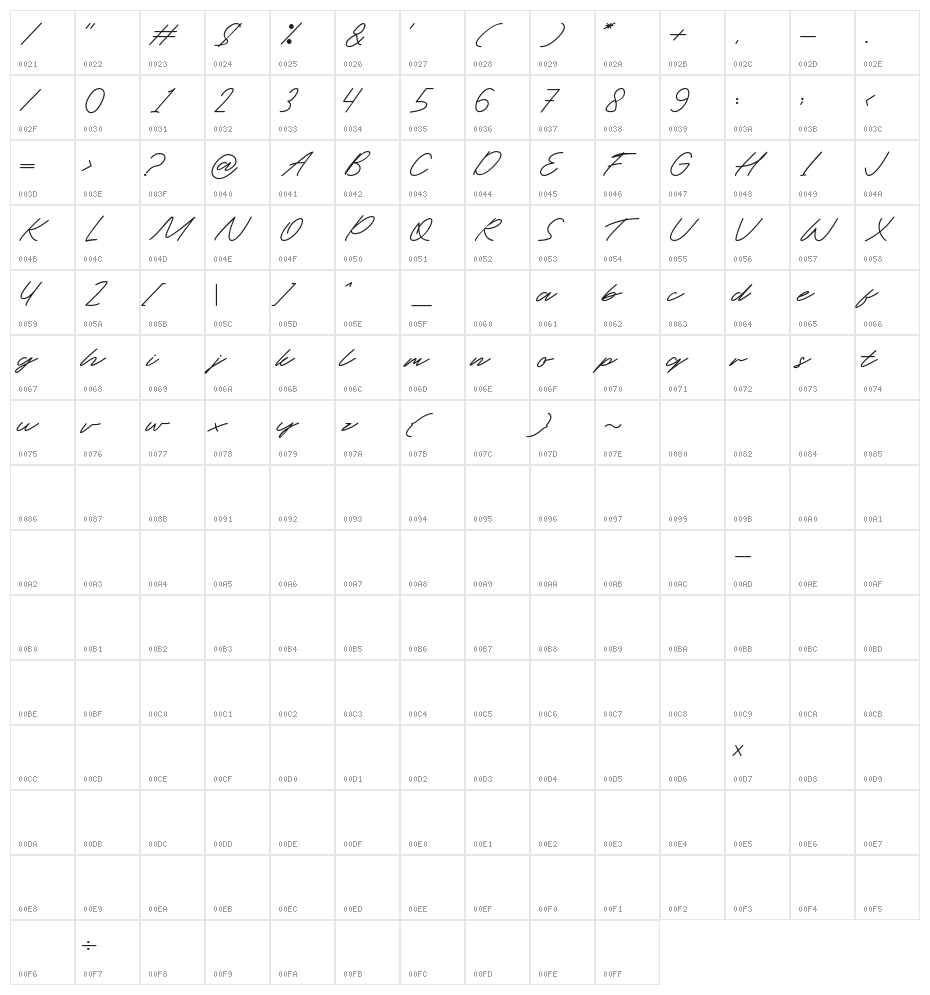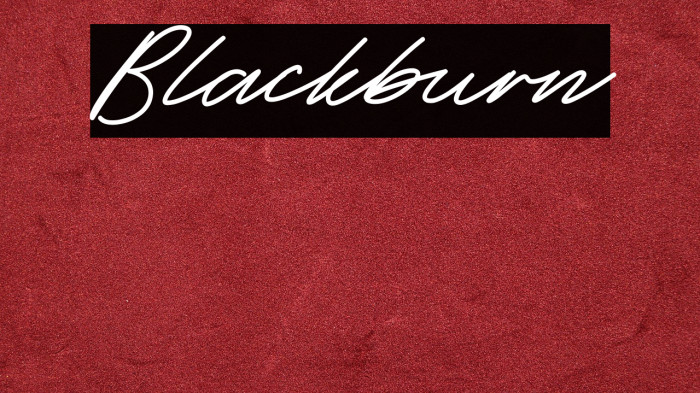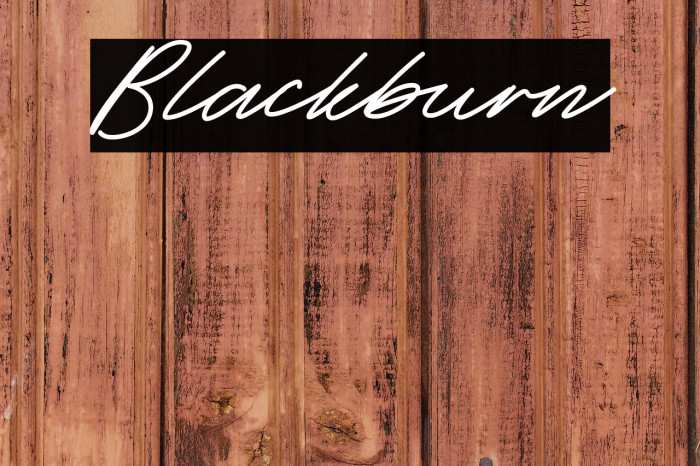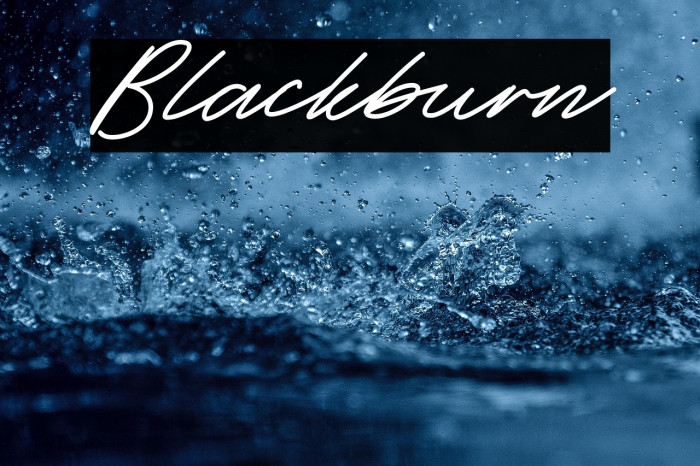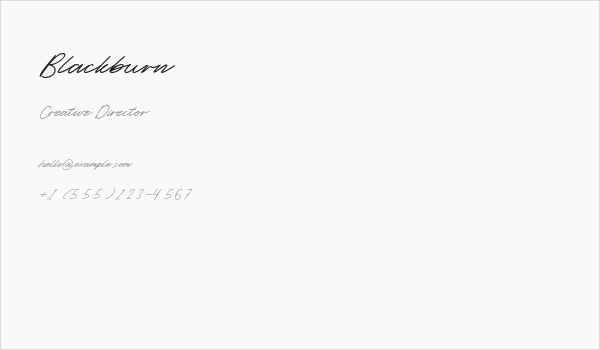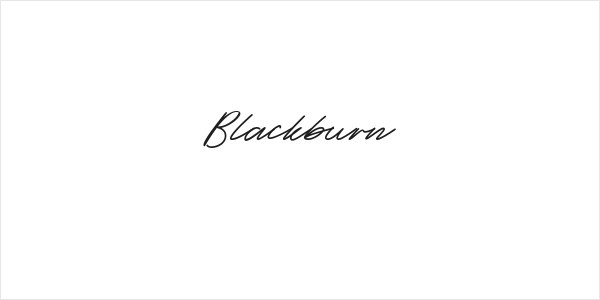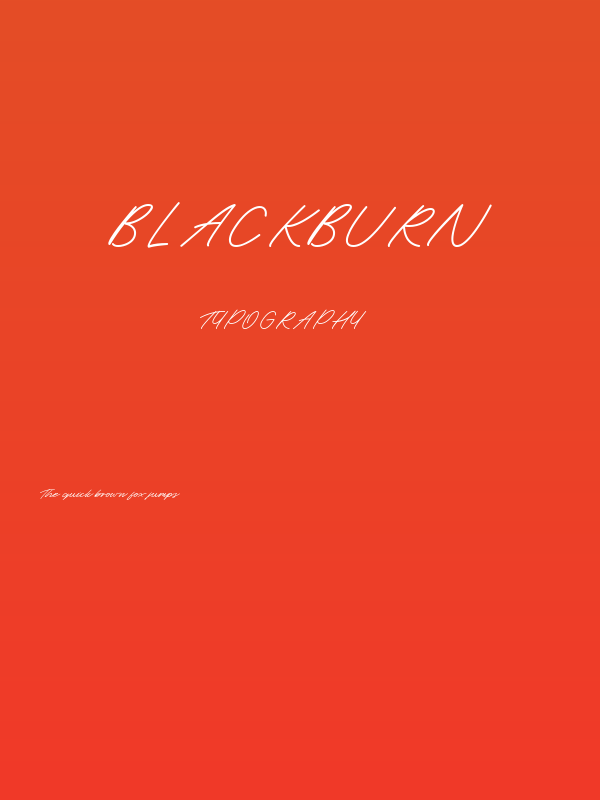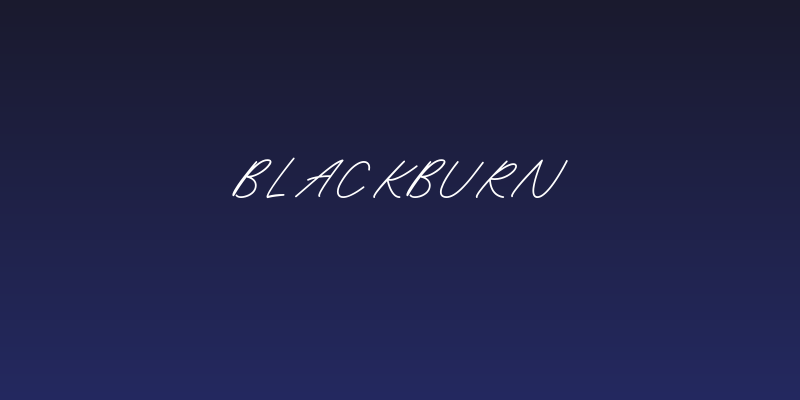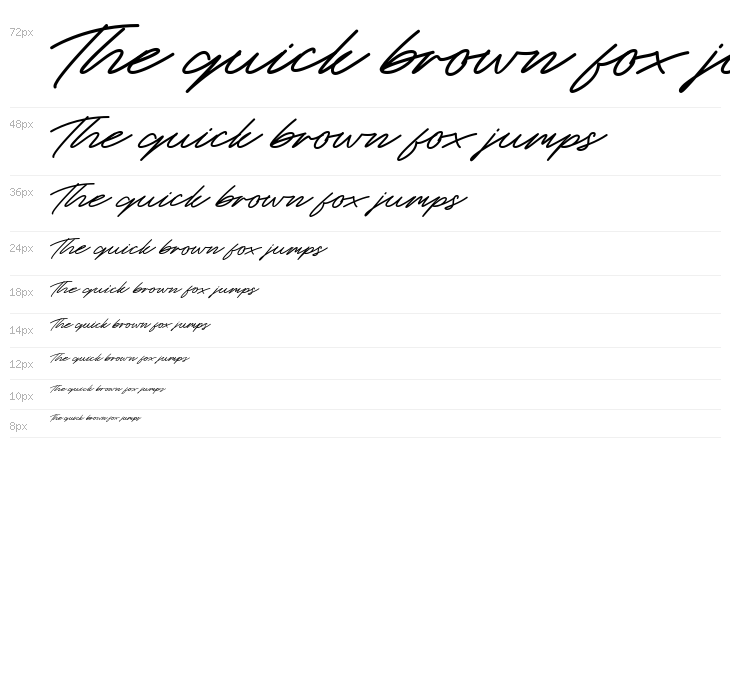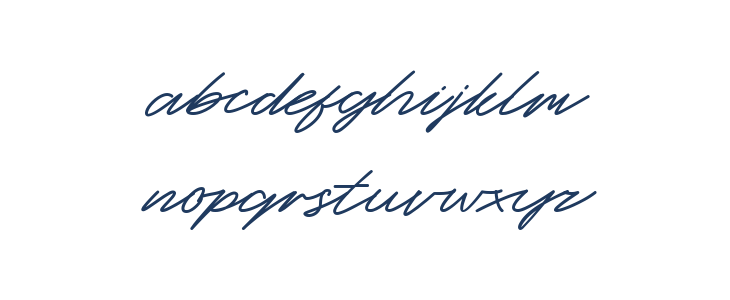
Blackburn Font
Blackburn Description
This font features a flowing, cursive style that mimics elegant handwriting. The letters are connected, creating a seamless and fluid appearance. The uppercase letters are slightly larger and more pronounced, while the lowercase letters maintain a consistent height, enhancing readability. The numerals and special characters are designed to match the script's overall aesthetic, with smooth curves and a slight slant. This font exudes a sense of sophistication and personal touch, making it ideal for projects that require a handwritten feel.
| Use Case | Logos, Invitations, Personal Correspondence |
| Proposed Projects | Ideal for wedding invitations, personal branding, greeting cards, and elegant stationery. |